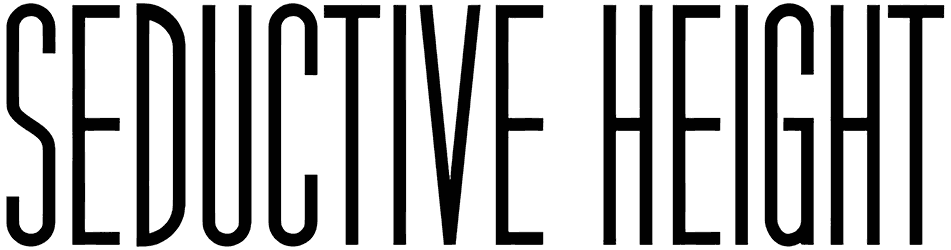
Seductive Height Font
The unique and humble visual of this condensed font will impress lots of viewers. As a tall and modern sans serif font, it can be used for many layouts, like a branding tag design, luxury company branding, and so forth. Use the Seductive Height font for your novel idea and add a charming and professional visual to your layout.